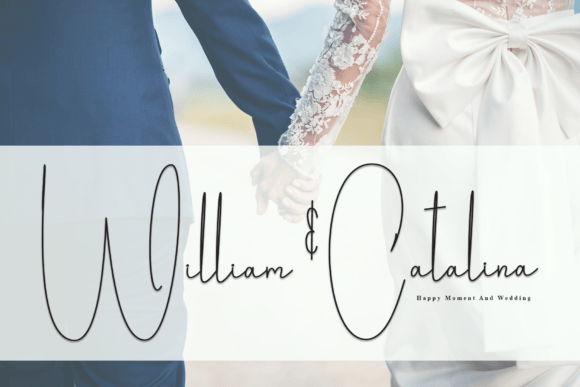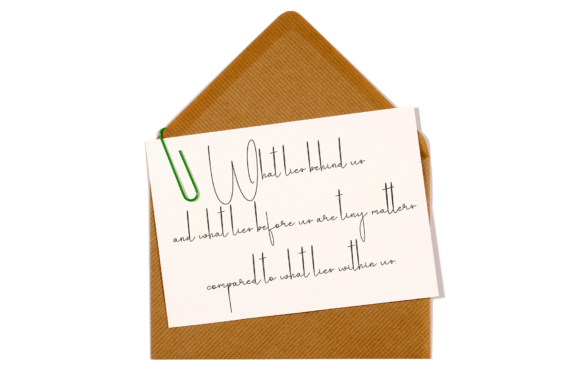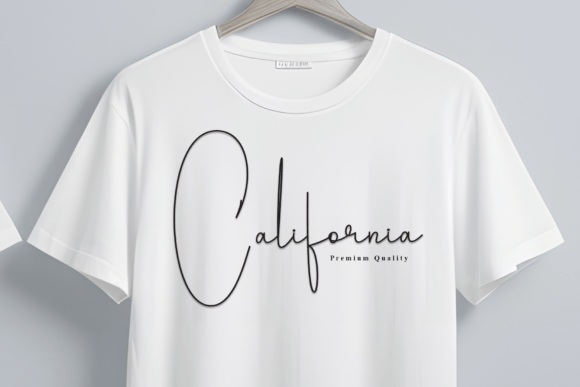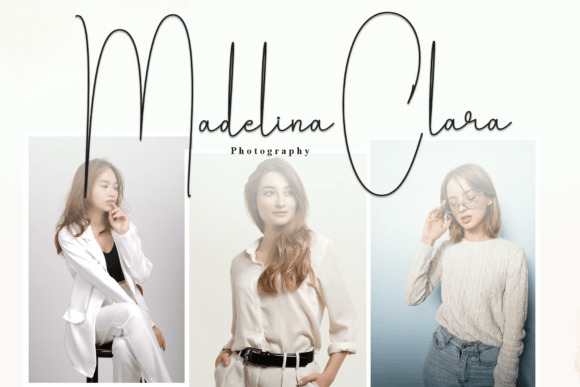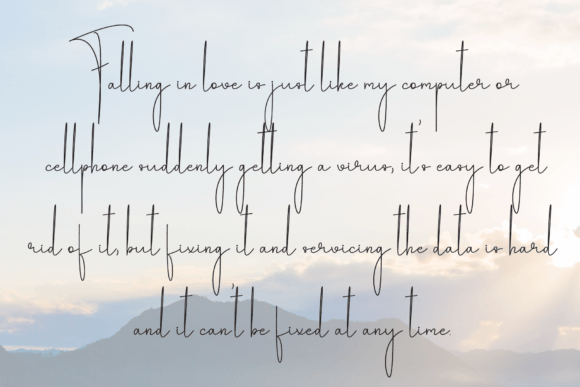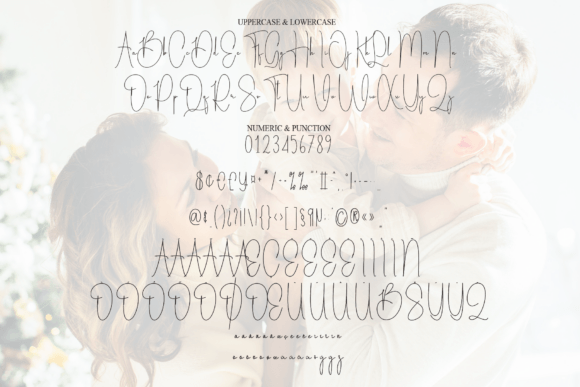
Introducing Family Christmas Font: A Charmingly Delightful Handwritten Display Font
Are you looking for a font that exudes sweetness and friendliness? Do you want to add a touch of fun and playfulness to your designs? Look no further than the Family Christmas Font! This charmingly delightful handwritten display font is perfect for crafting wedding invitations, cards, or any design that craves a splash of fun.
What Makes Family Christmas Font So Special?
The Family Christmas Font is distinguished by its adorable and playful nature. Each letter is carefully crafted to bring a magical, fun-filled touch to every project. The font’s captivating allure lies in its ability to turn each letter into a stroke of creativity, making it perfect for designers and crafters who want to add a personal touch to their work.
The Family Christmas Font is versatile and can be used for a wide range of design projects, including:
- Wedding invitations and cards
- Holiday cards and decorations
- Party invitations and flyers
Whether you’re a designer, crafter, or DIY enthusiast, this font is sure to become a favorite in your collection.
Key Features of Family Christmas Font
Here are some key features that make the Family Christmas Font stand out:
- Handwritten display font with a playful and adorable nature
- Perfect for designs that require a touch of fun and creativity
- Captivating allure that turns each letter into a stroke of creativity
- Versatile and can be used for a wide range of design projects
- Easy to read and understand, making it perfect for body text and headings
Tips for Using Family Christmas Font
Here are some tips for using the Family Christmas Font in your designs:
- Use it as a headline font to grab attention and add a touch of fun
- Pair it with a simple font for body text to create contrast and visual interest
- Experiment with different colors and textures to add depth and dimension
- Use it to create custom illustrations and graphics
Why Designers and Crafters Love Family Christmas Font
Designers and crafters love the Family Christmas Font for several reasons:
- It’s easy to use and pairs well with a variety of fonts
- It’s versatile and can be used for a wide range of design projects
- It’s fun and playful, making it perfect for designs that require a touch of whimsy